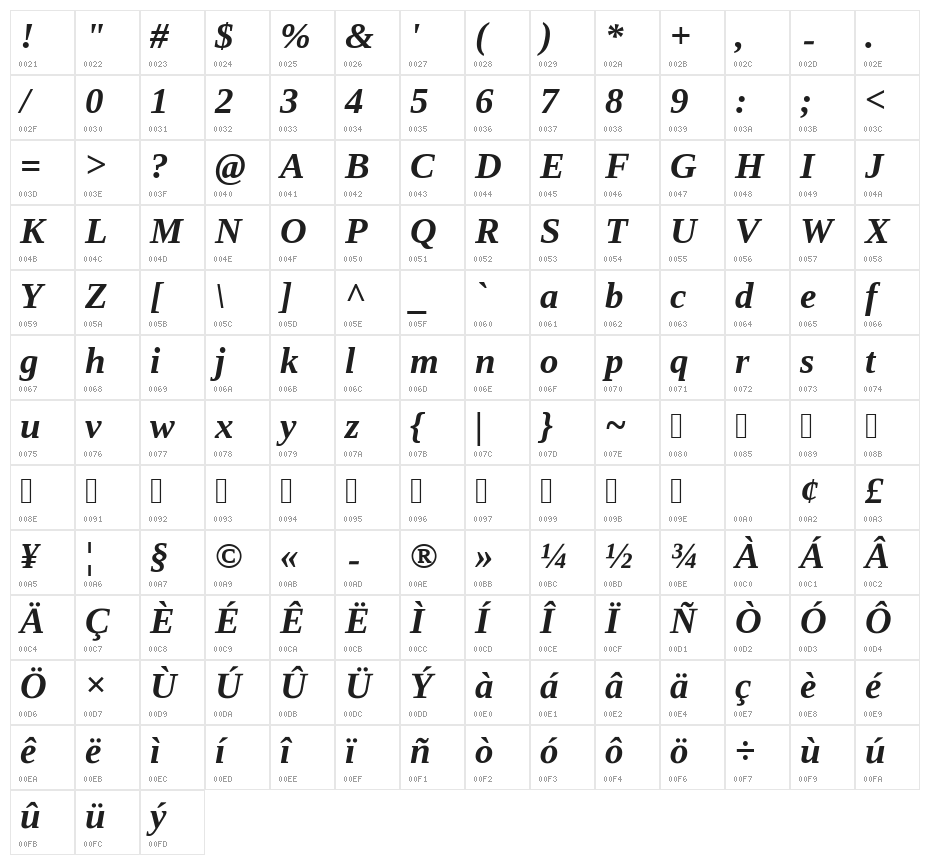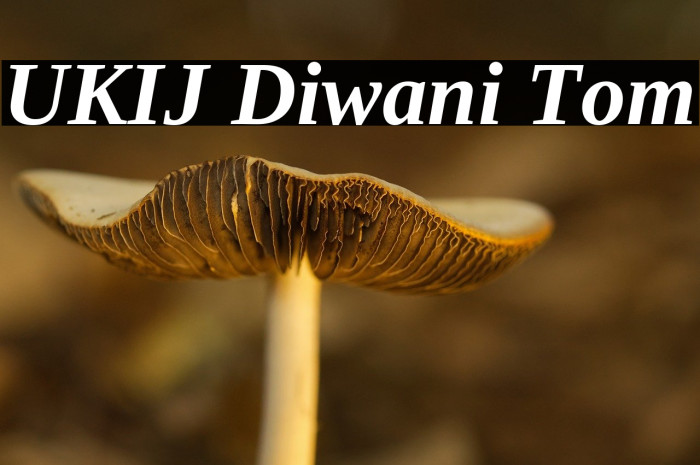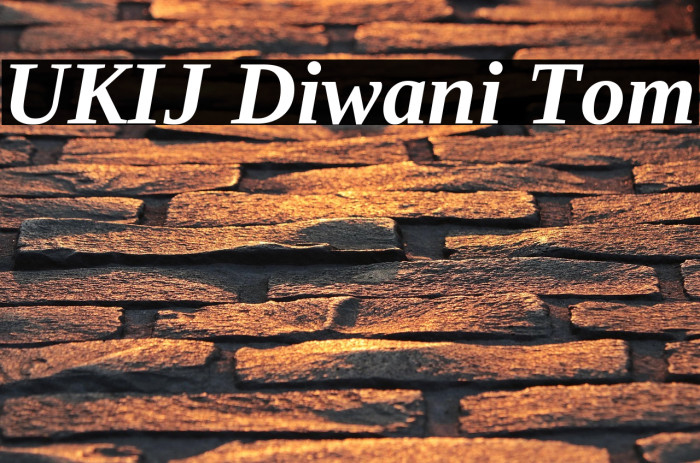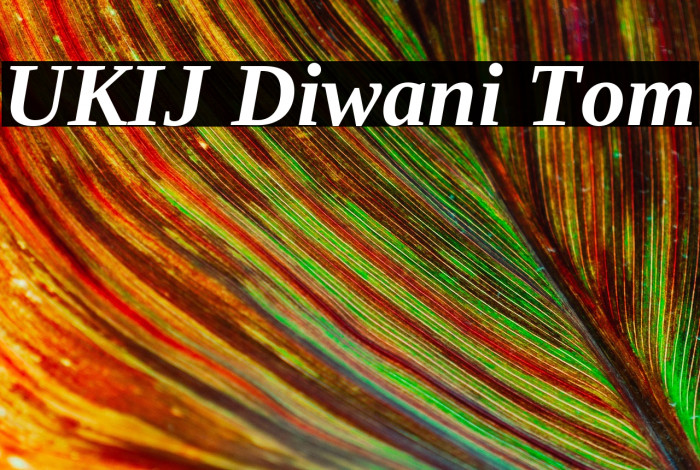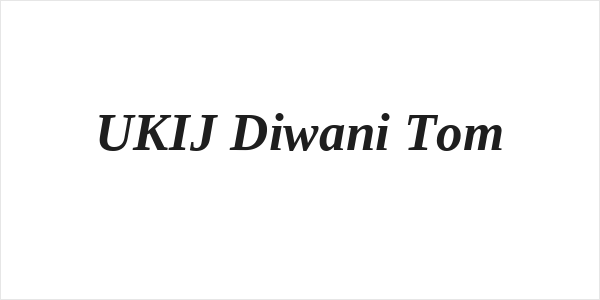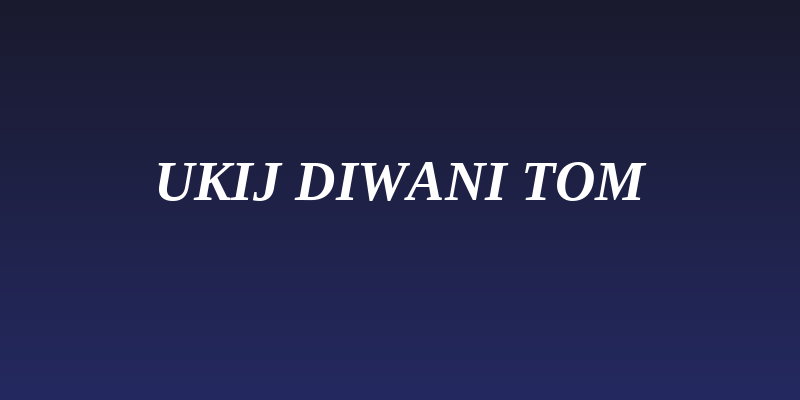
UKIJ Diwani Tom Font
UKIJ Diwani Tom Description
This font features a classic and elegant style with a slight slant, giving it an italicized appearance. The characters are well-defined with moderate contrast between thick and thin strokes, adding a touch of sophistication. The uppercase letters are bold and commanding, while the lowercase letters maintain a graceful flow. The numerals are clear and consistent, making them easy to read. Special characters are included, enhancing the font's versatility. Overall, it combines traditional elements with a modern twist, making it suitable for a variety of design projects.
| Proposed Projects | Ideal for formal invitations, elegant branding, book covers, and editorial design. |